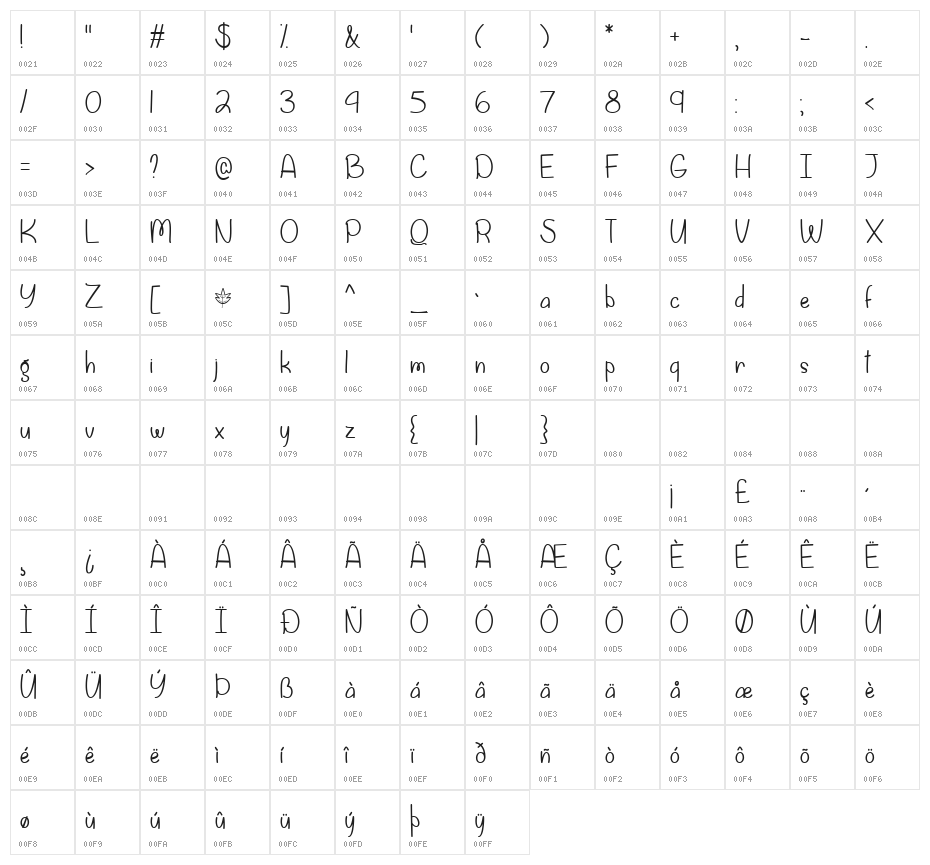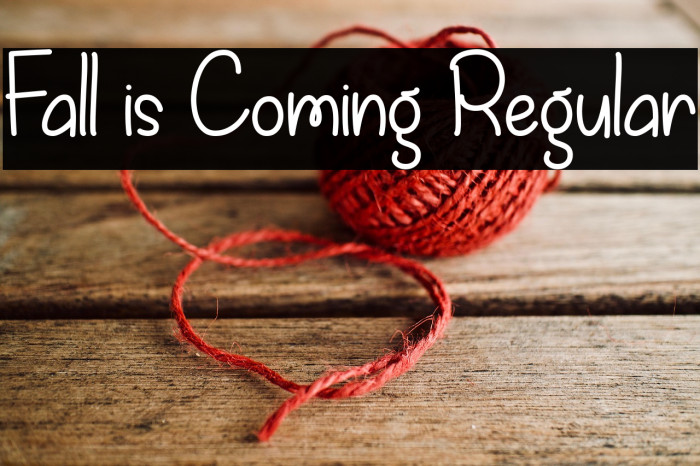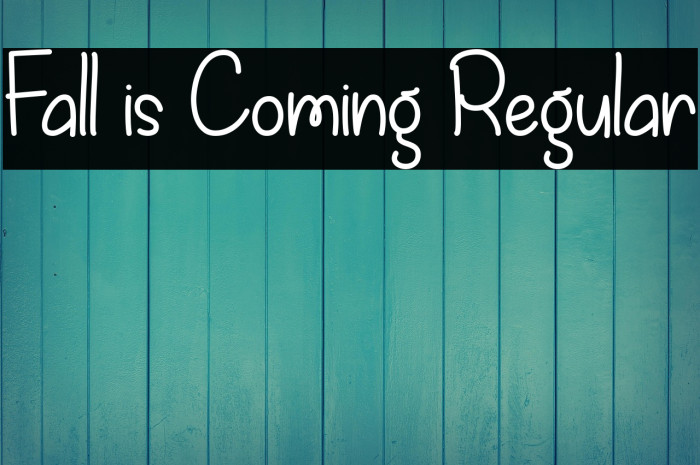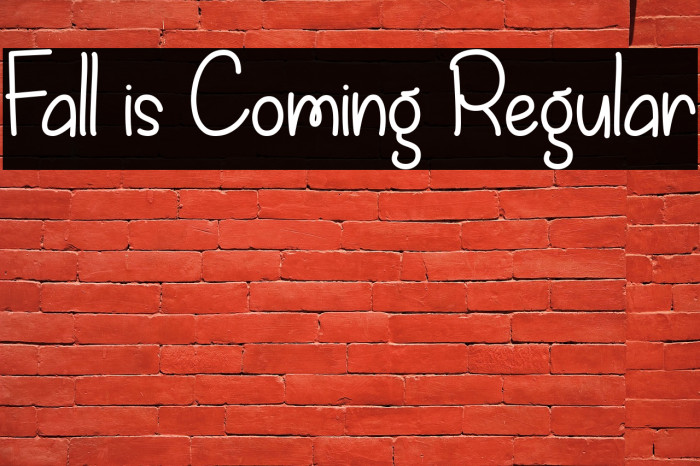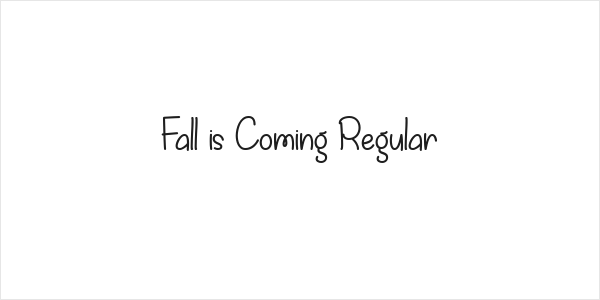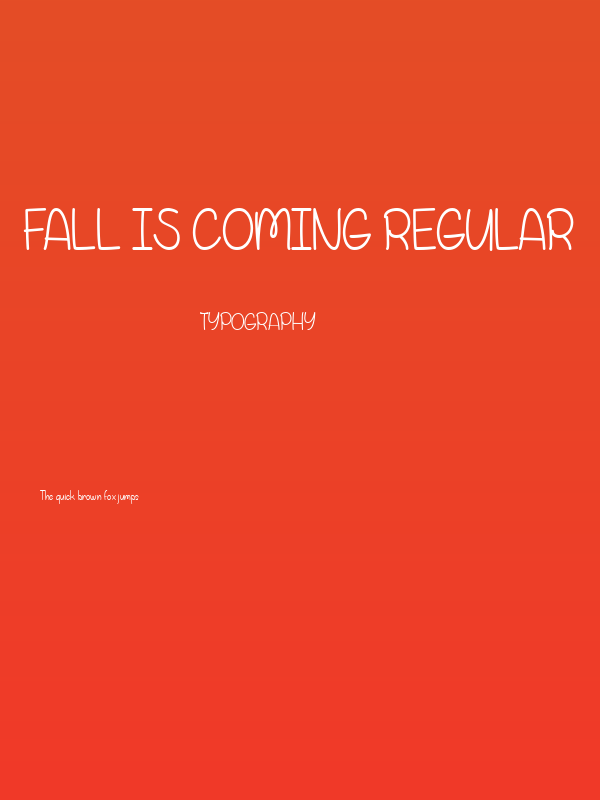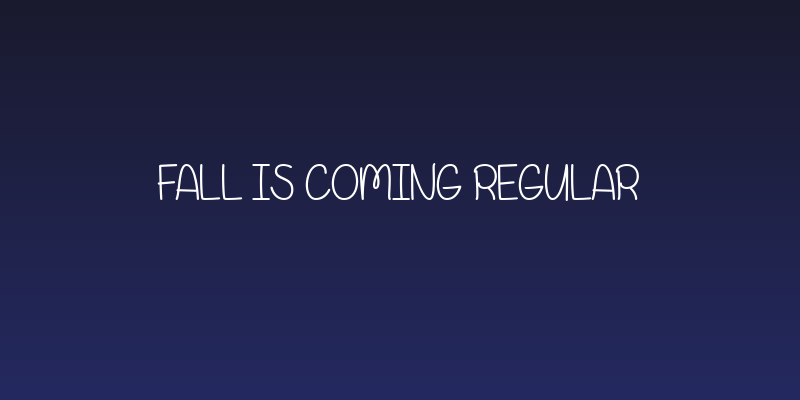
Fall is Coming Regular Font
Fall is Coming Regular Description
This playful and whimsical font features a handwritten style with smooth, rounded edges and a casual, friendly appearance. The uppercase and lowercase letters maintain a consistent flow, with slightly varying heights that add to its charm. Numbers and special characters are designed with the same playful aesthetic, making them easy to read while maintaining the overall style. The font's informal nature makes it suitable for projects that require a personal touch or a sense of fun and creativity.
| Proposed Projects | Ideal for greeting cards, children's books, playful branding, and social media graphics. |